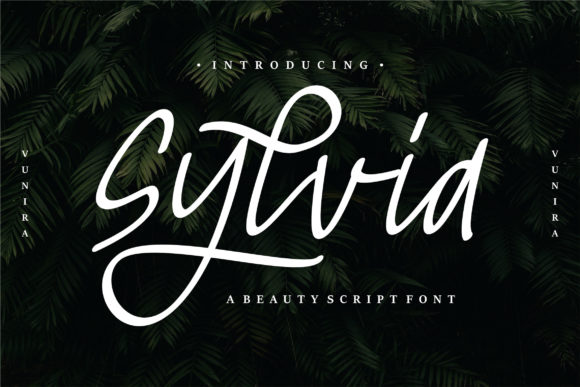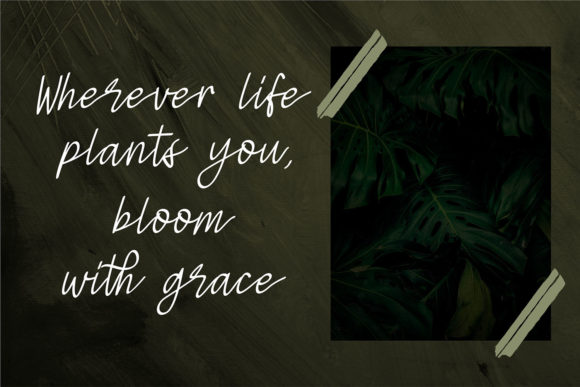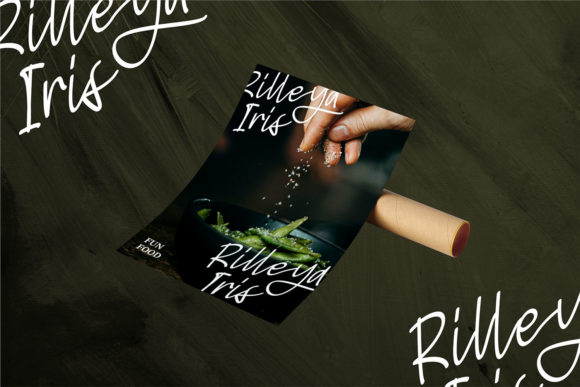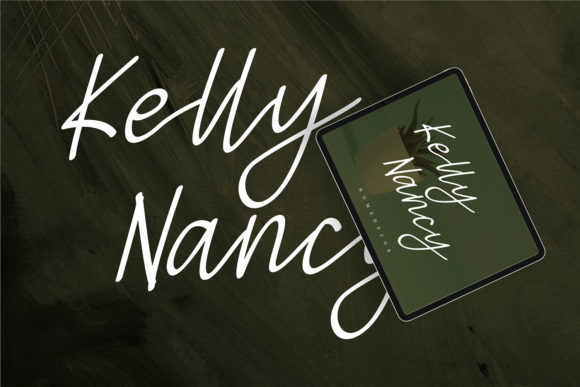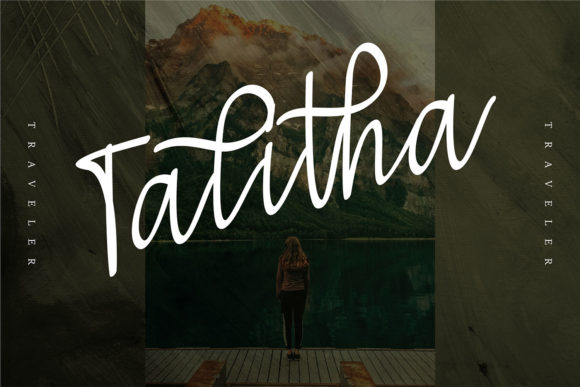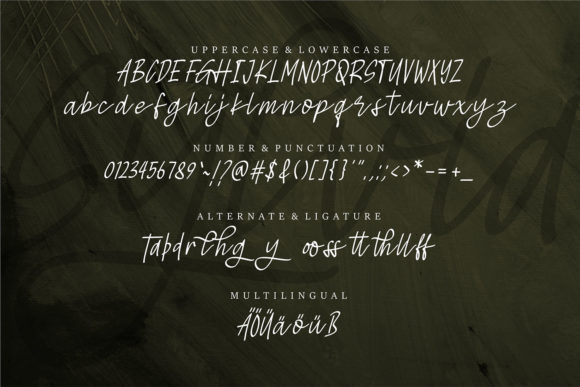
Sylvia Font
About Sylvia Font
Sylvia is a neat and relaxed handwritten font, designed to elevate each of your informal creations. This gentle font will look gorgeous on a variety of design ideas. It will add a joyful and romantic touch to each of your projects!